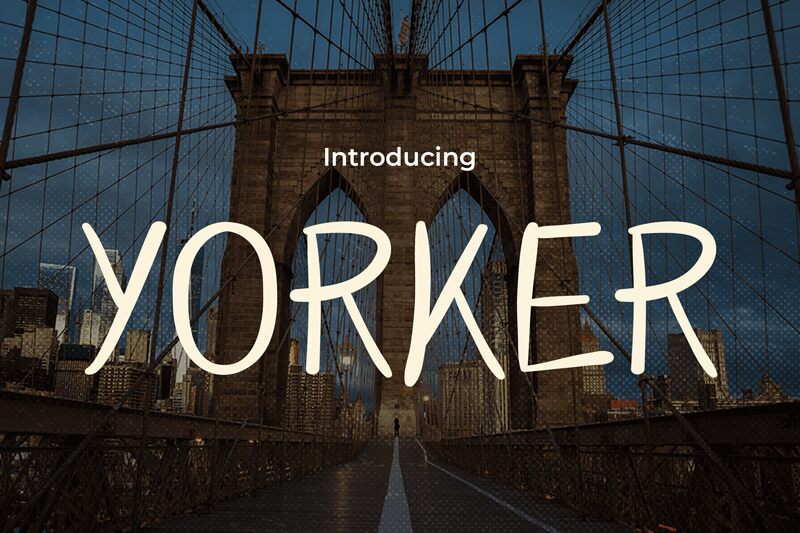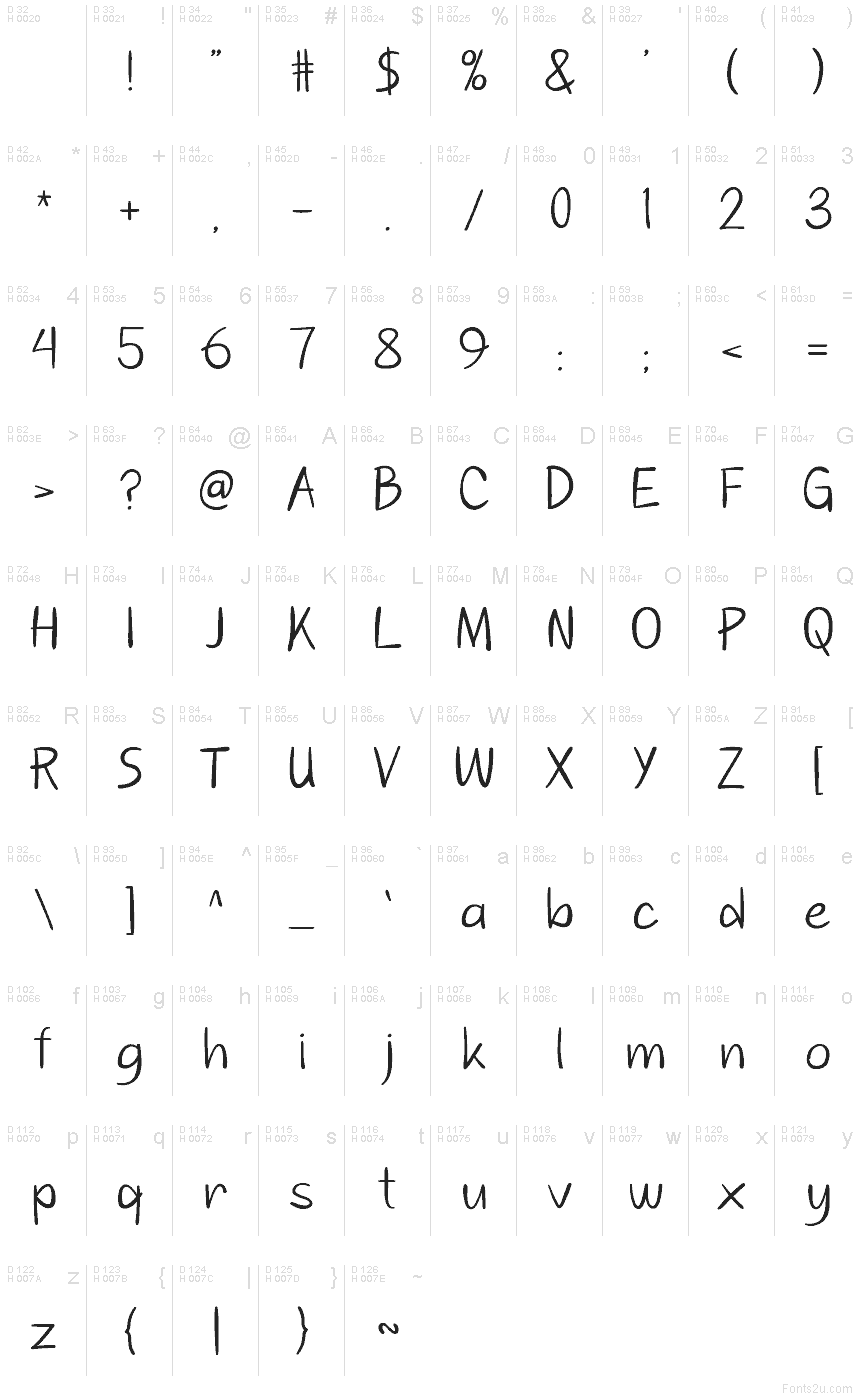
YORKER
Yorker font by Pinisiart is a playful handwritten font with a whimsical presence. Its freeform look stands out with irregular spacing and an uneven baseline that grabs attention. This casual typeface subtly mimics the genuine strokes of hand-drawn lettering where each character carries unique traits.
Use Yorker in branding for friendly businesses, comic books, children’s books, posters, titles, headings, and logos. Ideal for brochures/flyers with a personal touch, this free font works well in many other occasions such as digital ads or sticker designs.